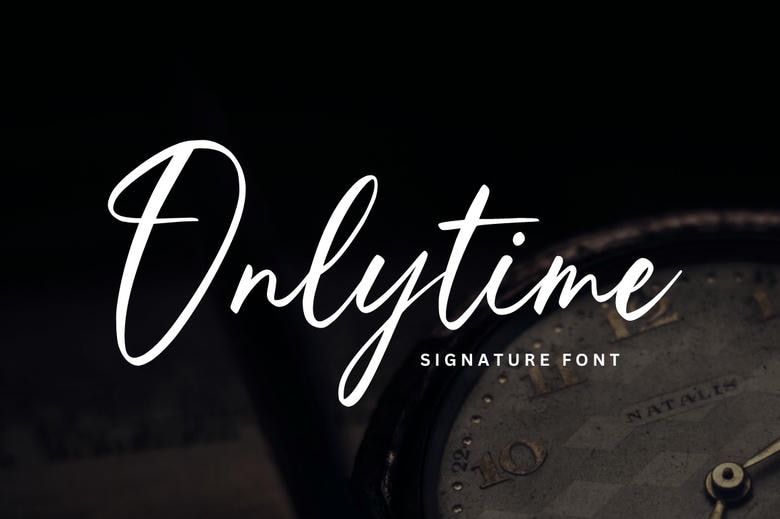
Onlytime Font
Onlytime is a signature font script which is full of class and exclusiveness. This font is flowing and the lines are gentle and captivating, resembling a handwritten signature. Ideal in tools that involve an individual touch and a luxury touch like logos, branding, or wedding invitations. Onlytime can only make your designs timeless and sophisticated and leave a lasting impression in their signature style.
Onlytime Handwritten Script Font